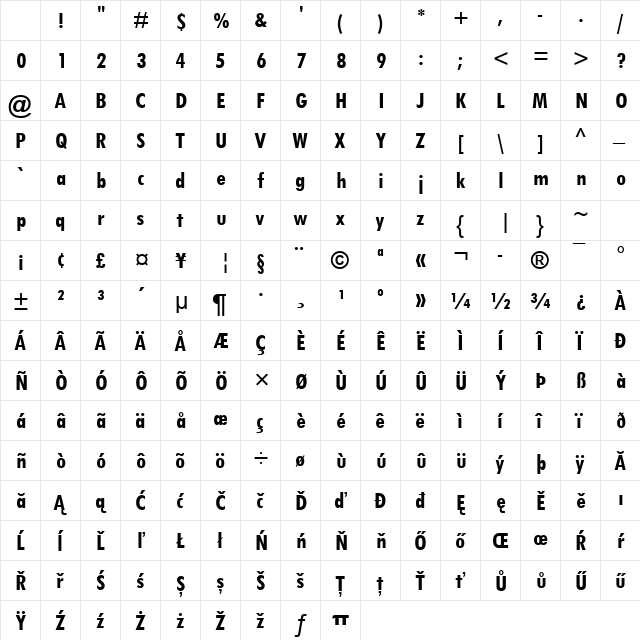
Complete Tw Cen MT Condensed Bold glyph index. Displaying only characters natively supported by Tw Cen MT Condensed Bold font.
Tw Cen MT Condensed is a composed and adaptable typeface that performs quietly and consistently across a wide range of design contexts. Its bold stroke weight gives it real presence on the page. Its narrow stance lets it pack a punch even in space-constrained designs.
Pro Tip: Use Tw Cen MT Condensed in both headline and body roles to test its range before committing to a single application.